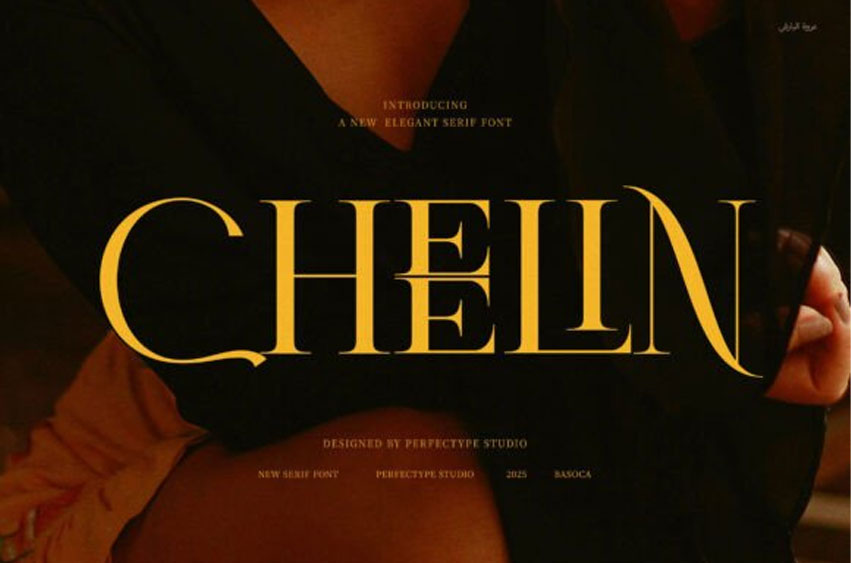
Cheelin Font
Cheelin Font Elegant Serif Font offers a perfect blend of modern design and timeless sophistication. This serif font features proportional shapes, crafted carefully to suit all your branding needs. Moreover, its functional ligatures enhance readability and add smooth, natural connections between letters, making your designs visually captivating.
Whether you’re creating logos, websites, or magazine layouts, Cheelin ensures your project stands out with a polished and professional look. The font’s elegant style works beautifully across various media — from product packaging and boutique branding to food advertisements and more. Its balanced proportions guarantee consistency, allowing your designs to maintain harmony no matter where they appear.
Thanks to its refined serif details, Cheelin adds a touch of class while remaining highly legible. This makes it ideal for businesses aiming for a clean yet sophisticated aesthetic. Also, because it’s versatile, this font adapts effortlessly to digital and print projects alike, giving you a reliable choice for any creative challenge.